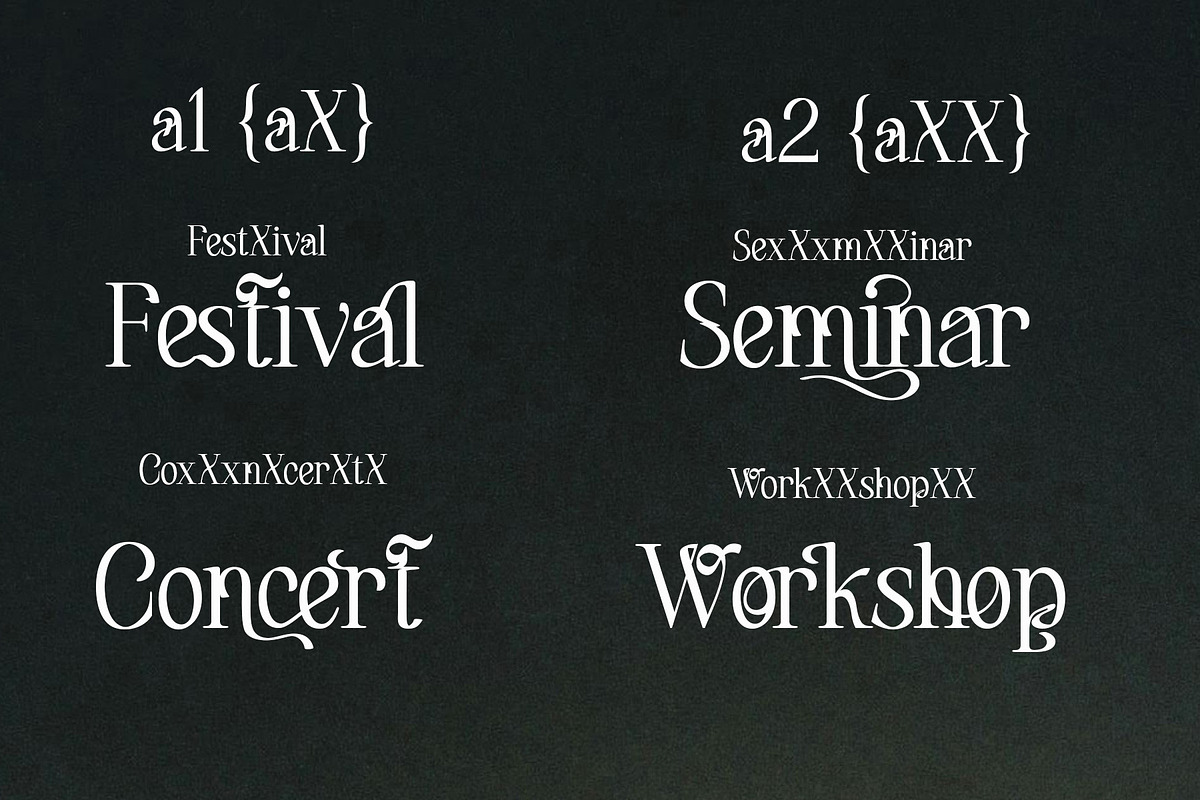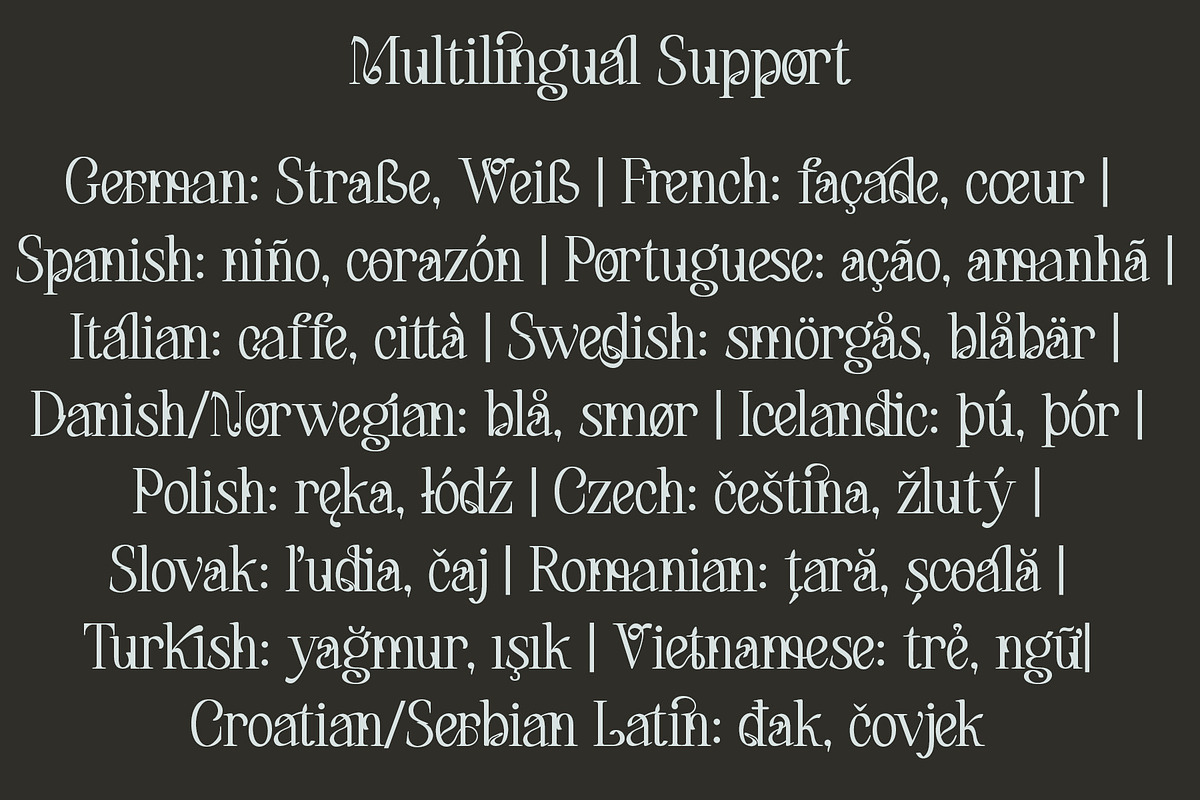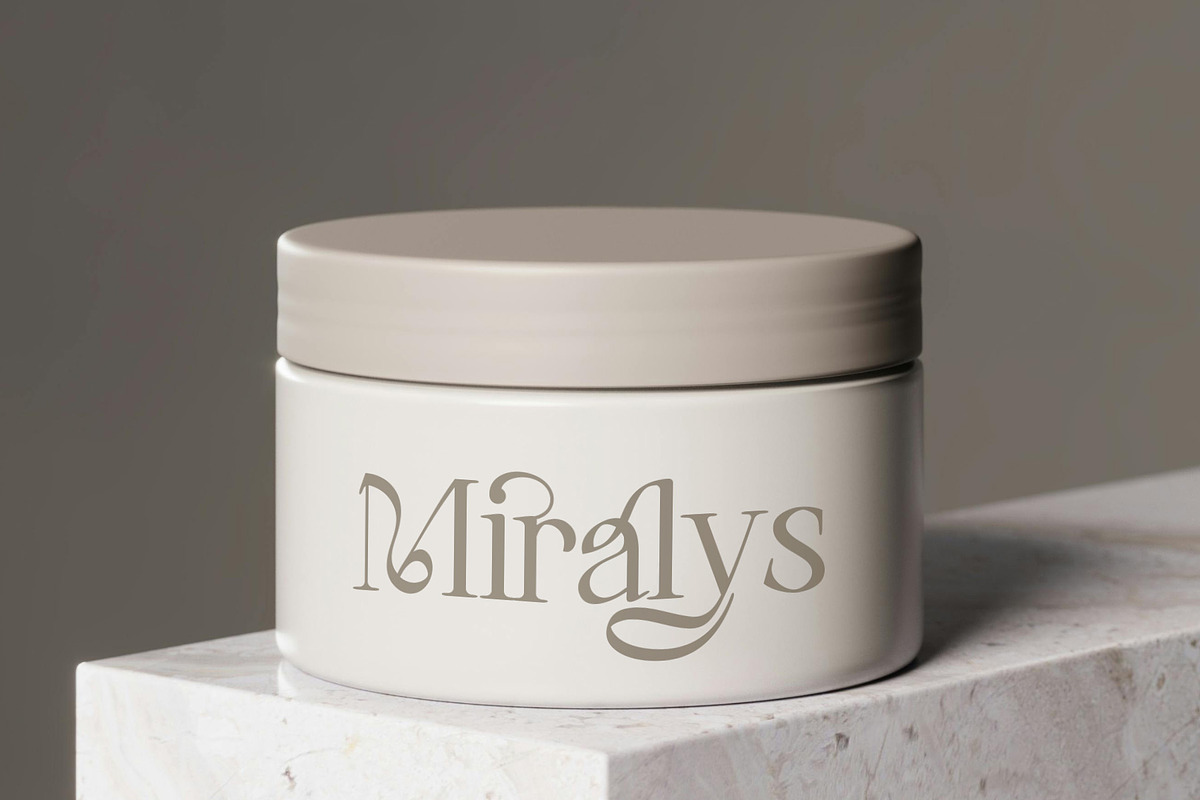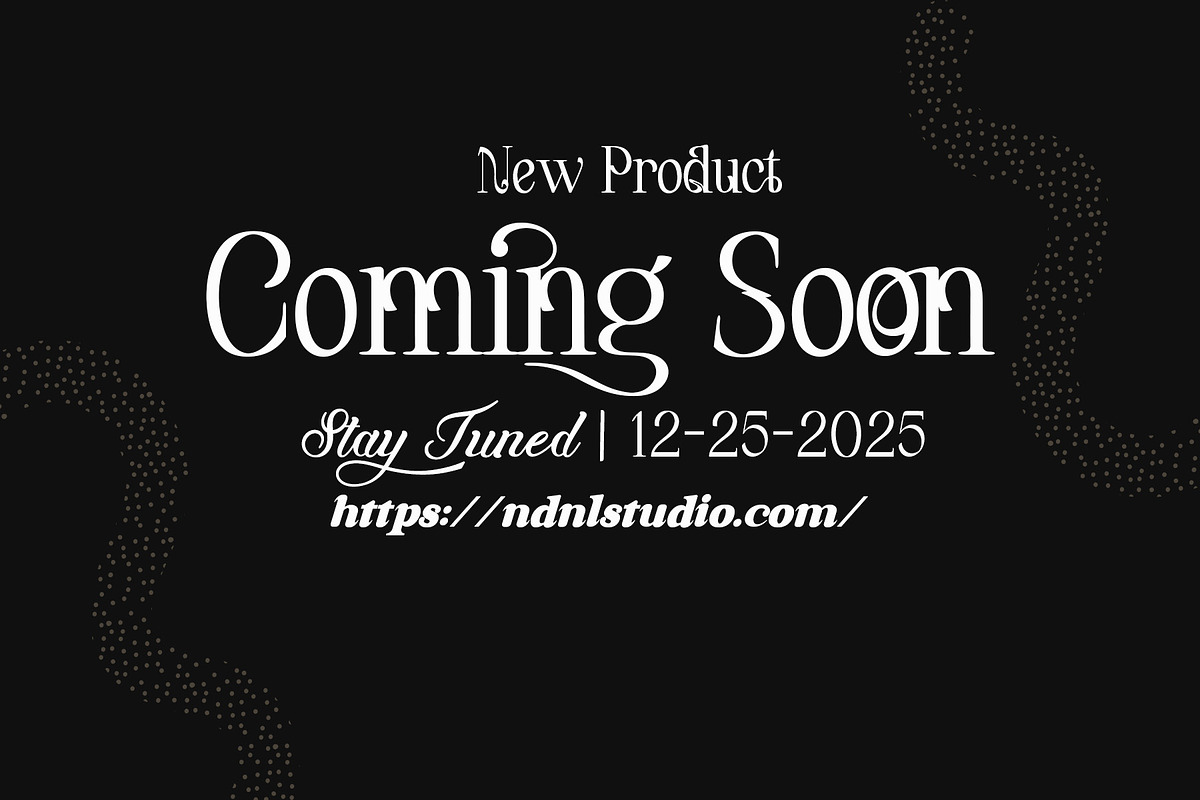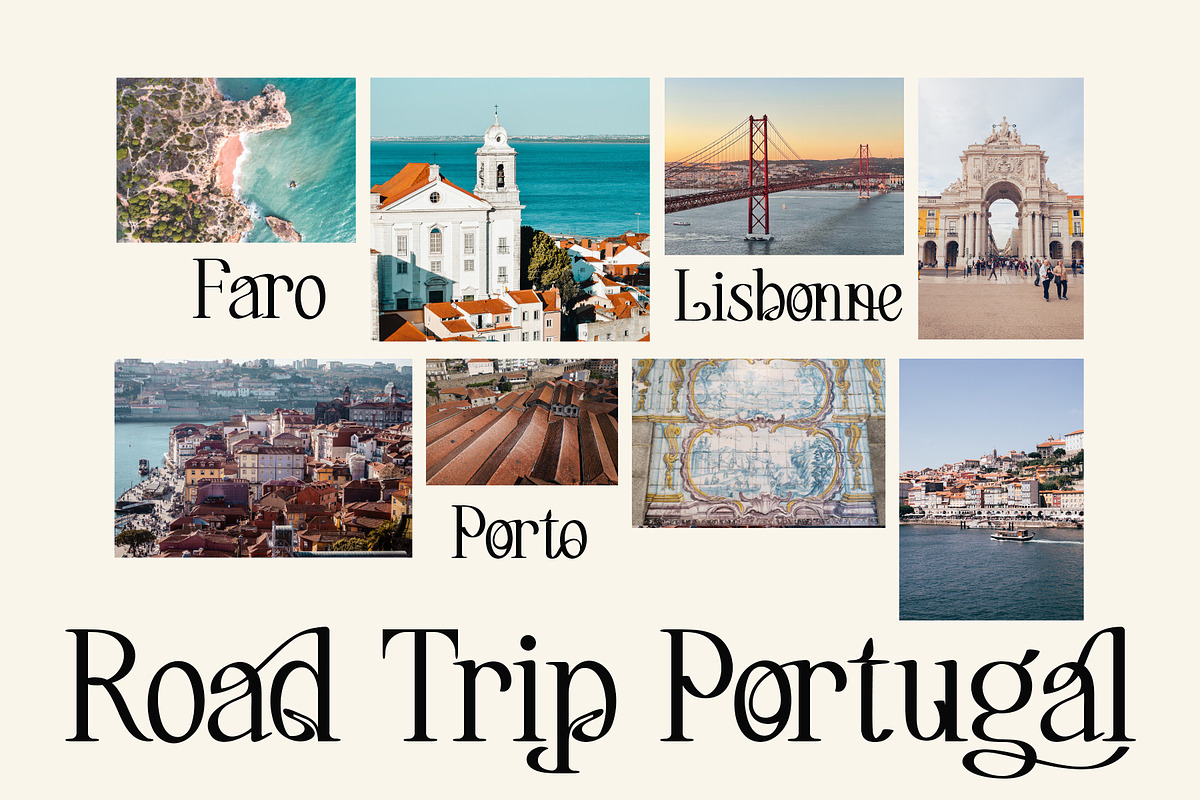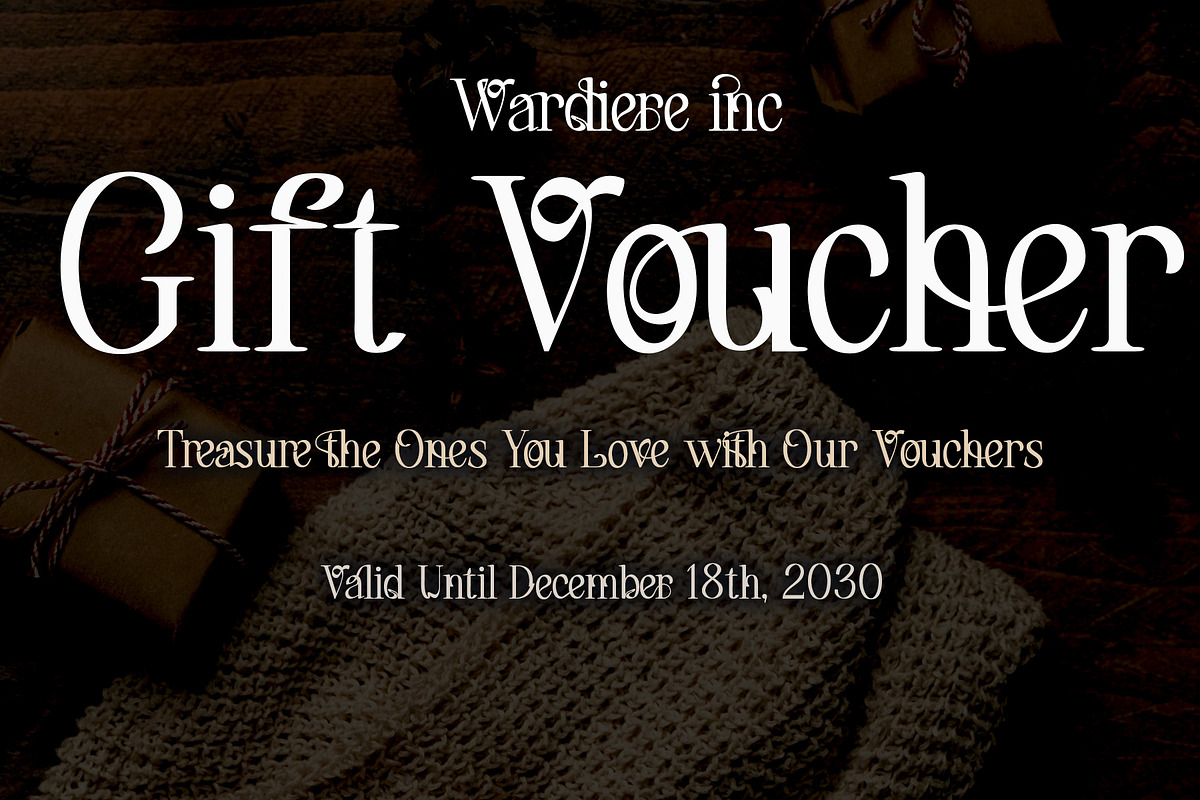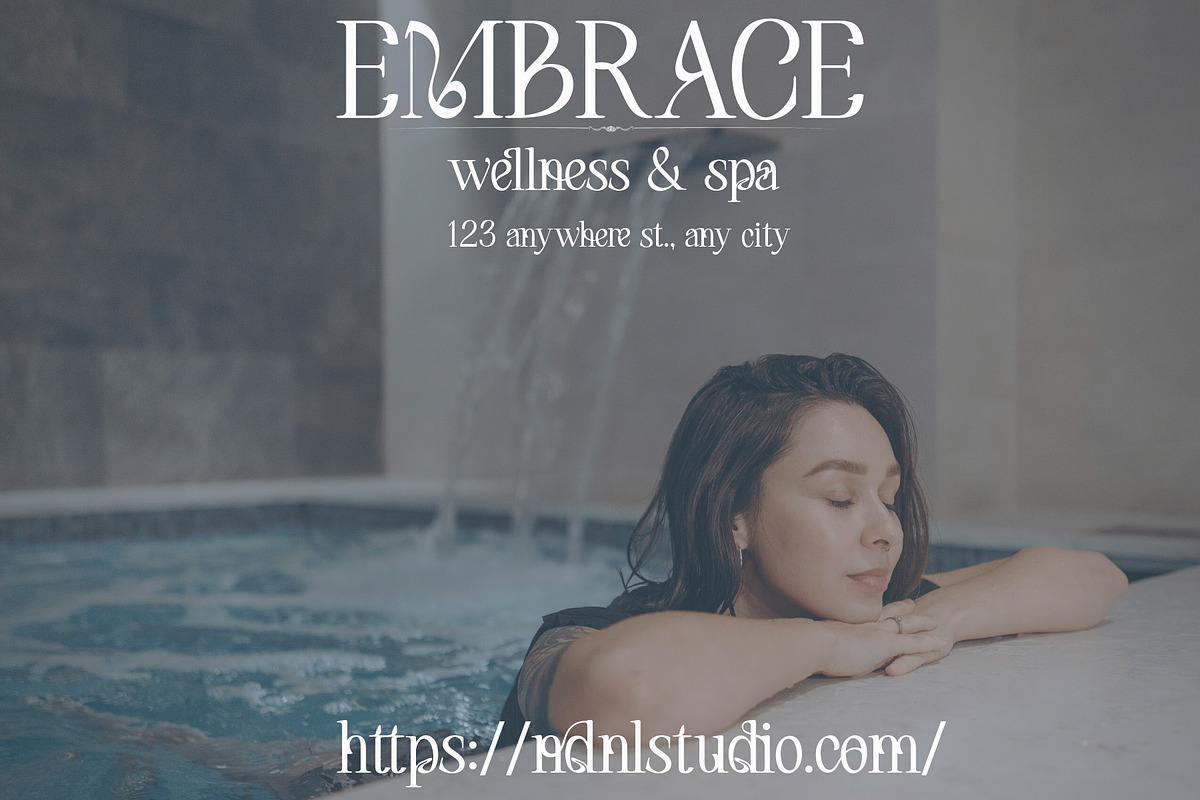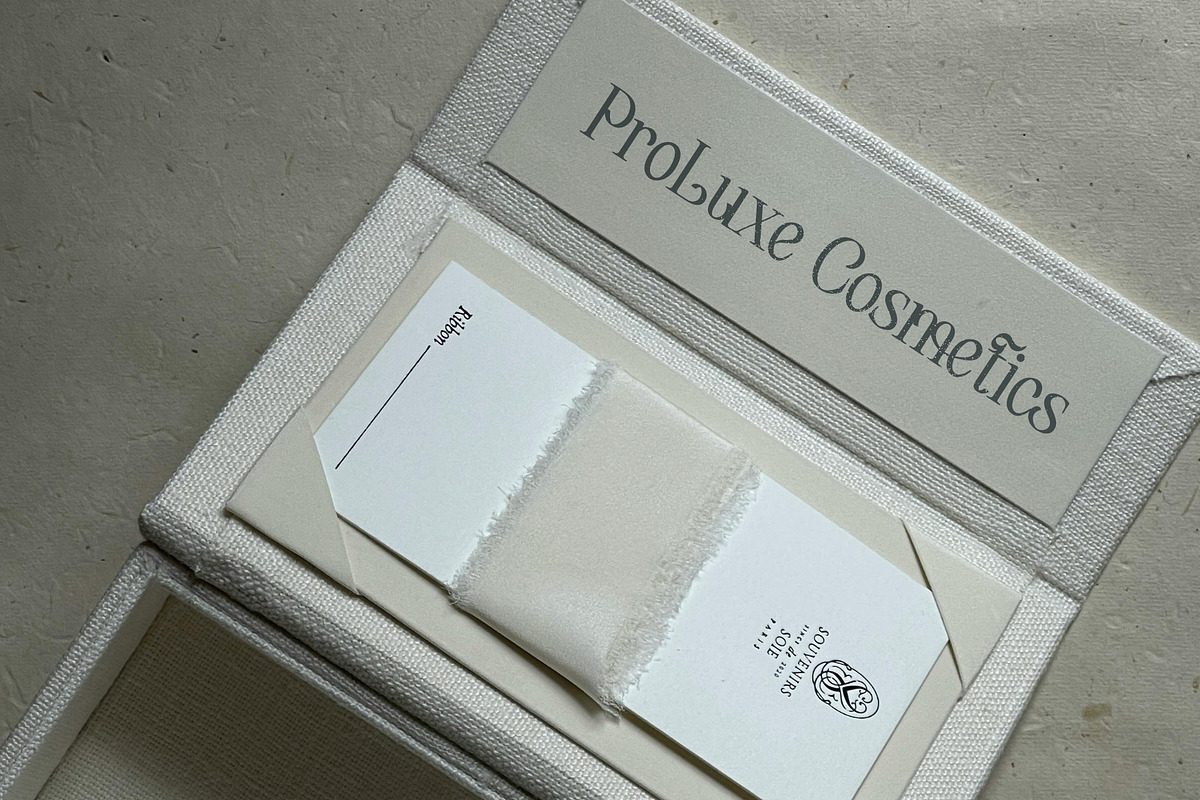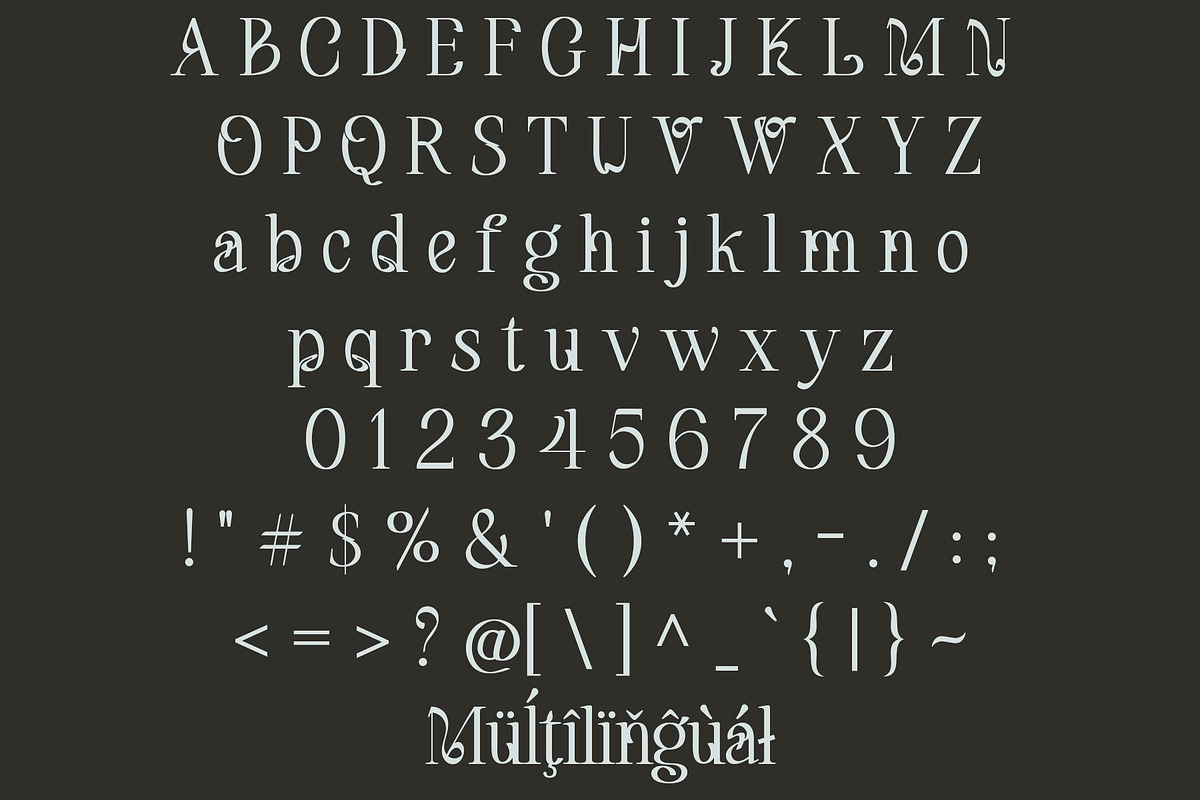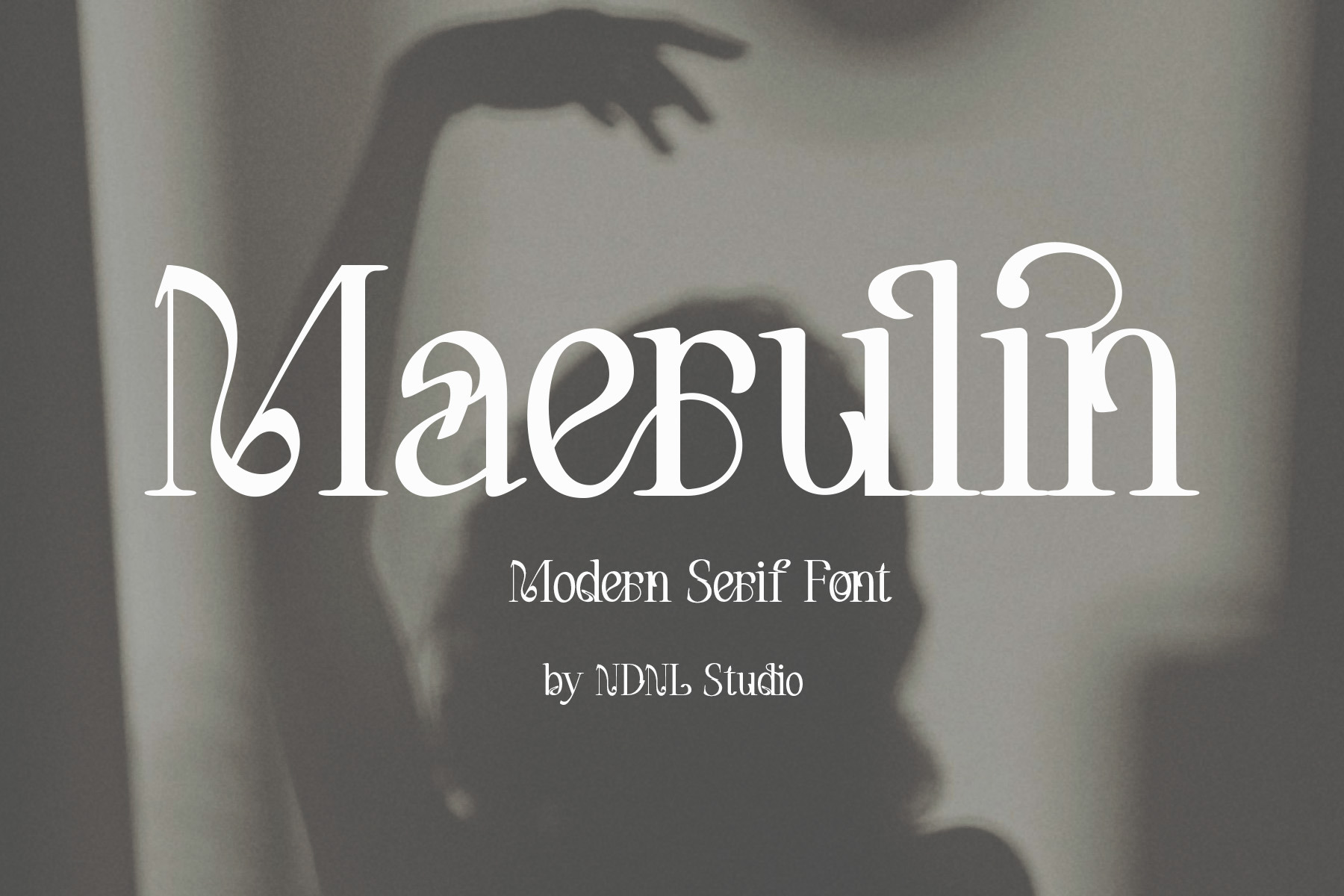
Maerulin – Serif Font
Introducing Maerulin!
Maerulin is a modern serif font that blends artistic flair with contemporary elegance. Its unique curves, refined cuts, and expressive letterforms create a distinctive visual identity that stands out effortlessly. Maerulin brings a perfect balance between creativity and sophistication, making it ideal for high-end branding, artistic posters, editorial designs, book covers, and fashion-related projects.
Crafted with a bold yet graceful style, this font adds personality and character to every design. Whether you’re building a luxury logo, designing a magazine layout, or creating striking visual content, Maerulin elevates your work with its stylish and modern aesthetic.
If the software you are using does not fully support OpenType features (such as Stylistic Alternates), you can still access the decorative characters of the font using the following method:
Examples:
- Axx → Decorative A (if available)
- aX → Decorative a (if available)
And also:
- AxX → Decorative A2 (if available)
- aXX → Decorative a2 (if available)
- aXXX → Decorative a3 (if available)
To separate ligatures: Insert the shortcut xXx between two characters.
- ab → axXxb → a b